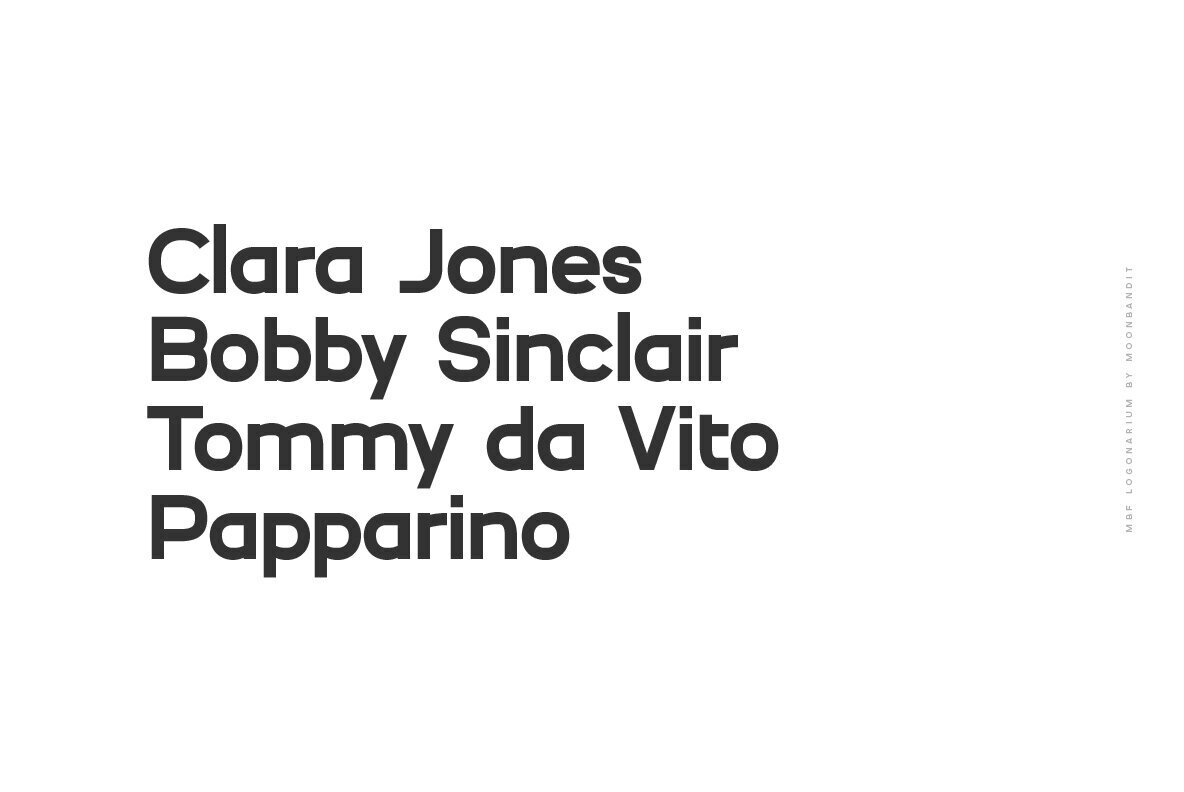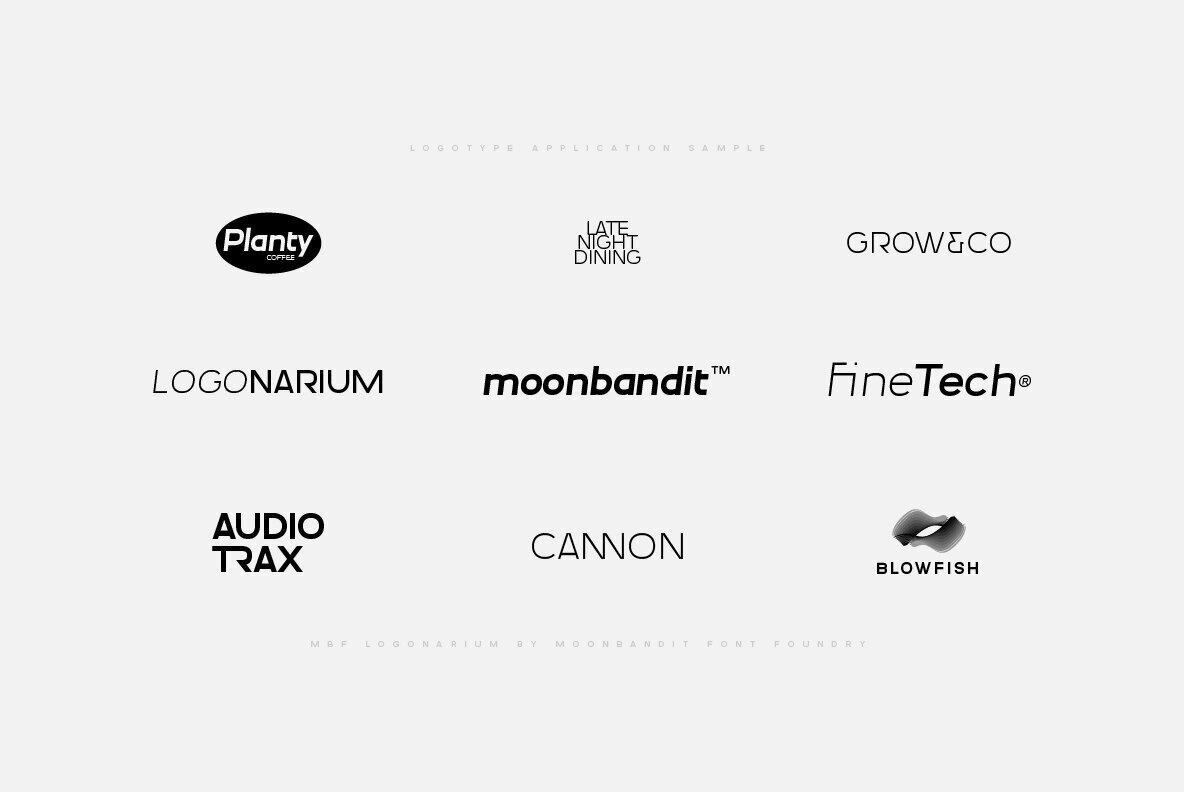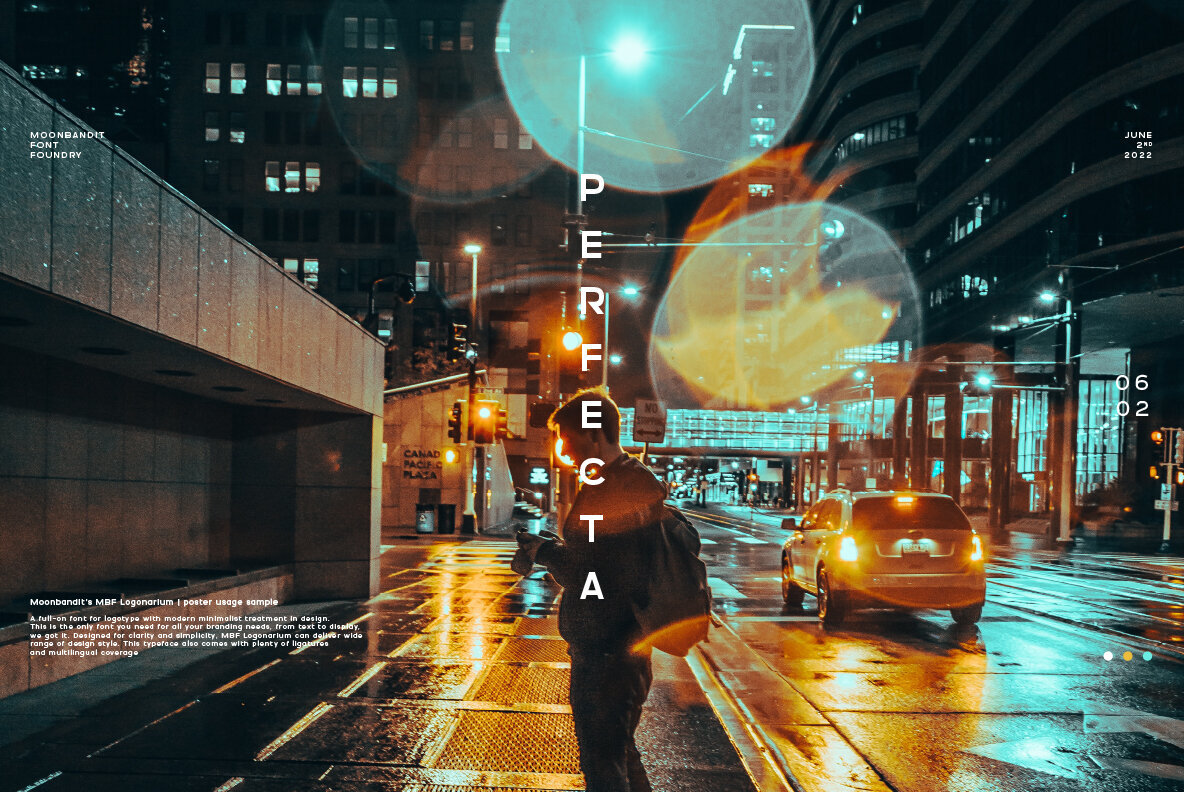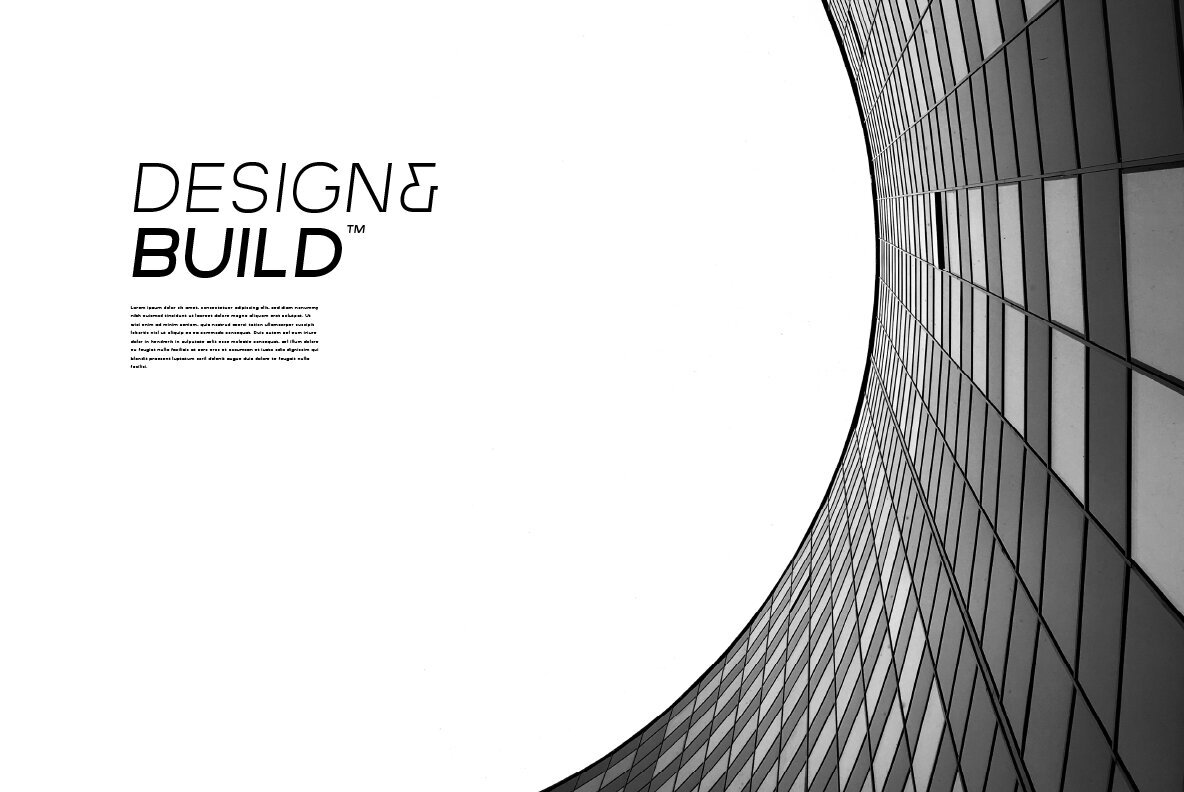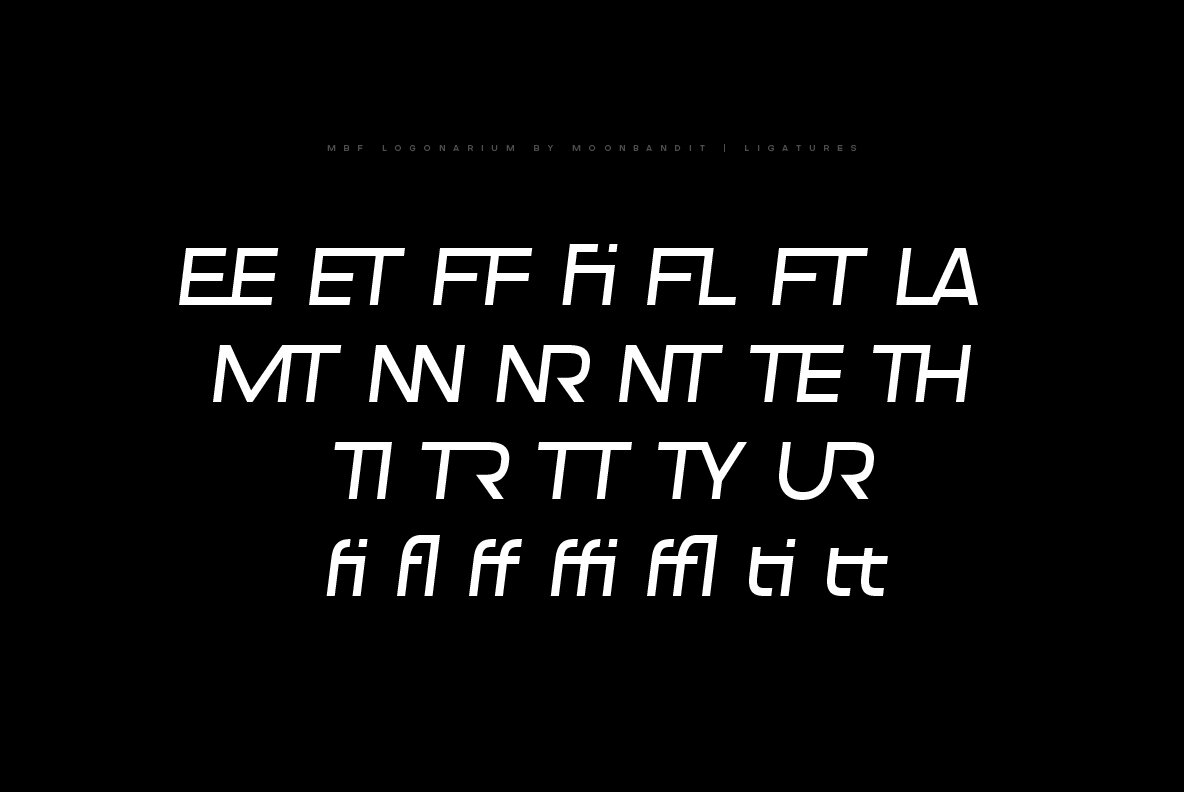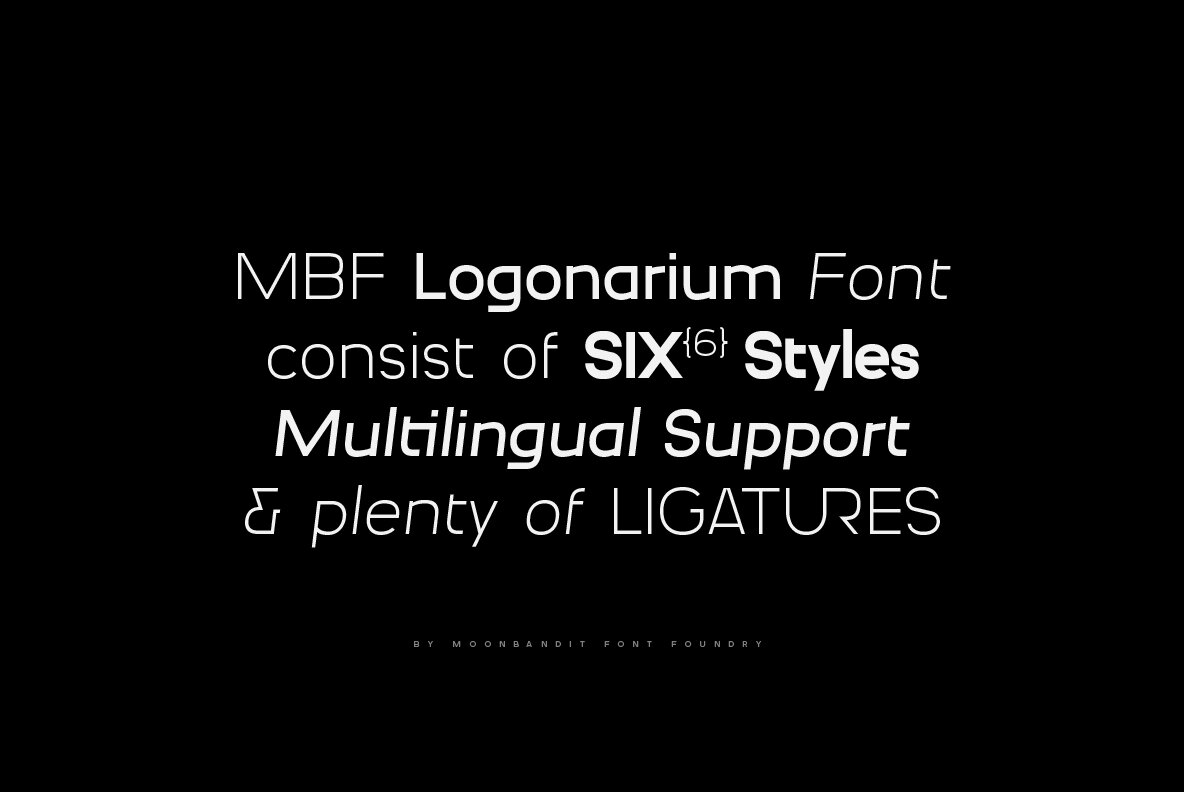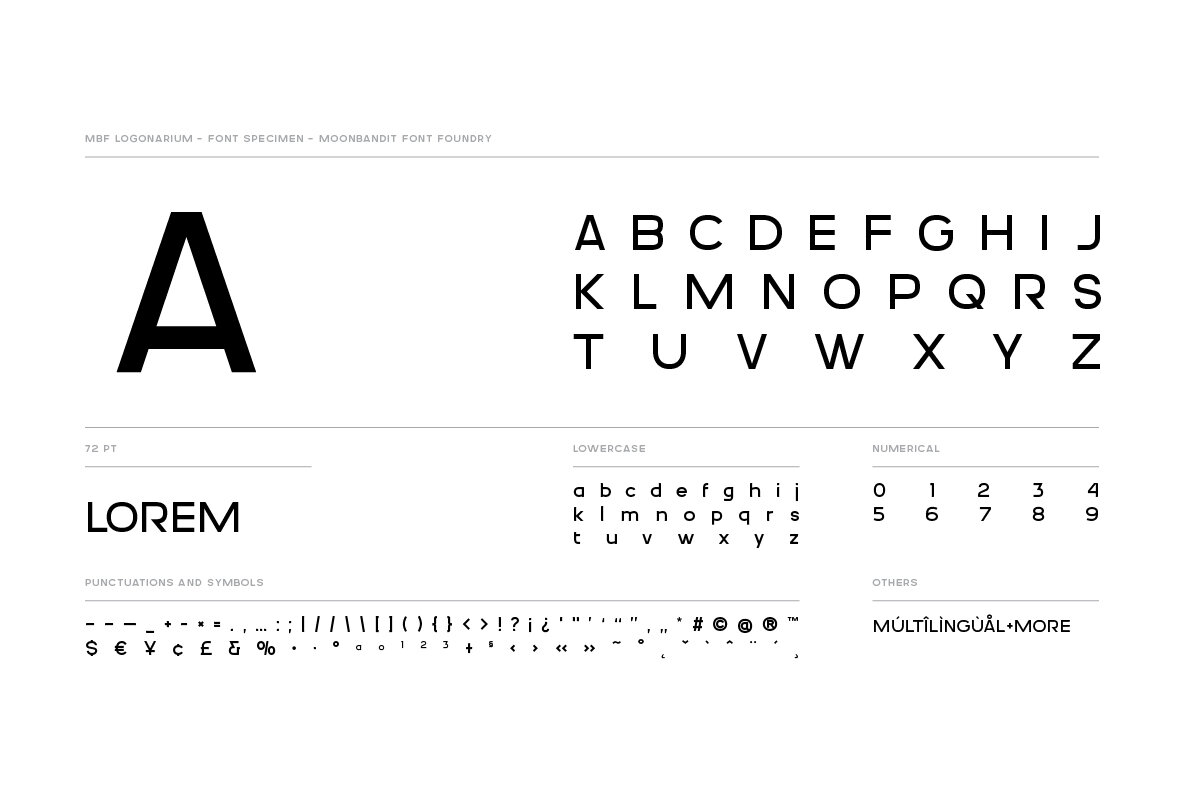
MBF Logonarium Font
A full-on go to font for logotype with modern minimalist treatment in design. This is the only font you need for all your branding needs, from text to display, we got it. Designed for clarity and simplicity, MBF Logonarium can deliver wide range of design style. This typeface also comes with plenty of ligatures and multilingual coverage